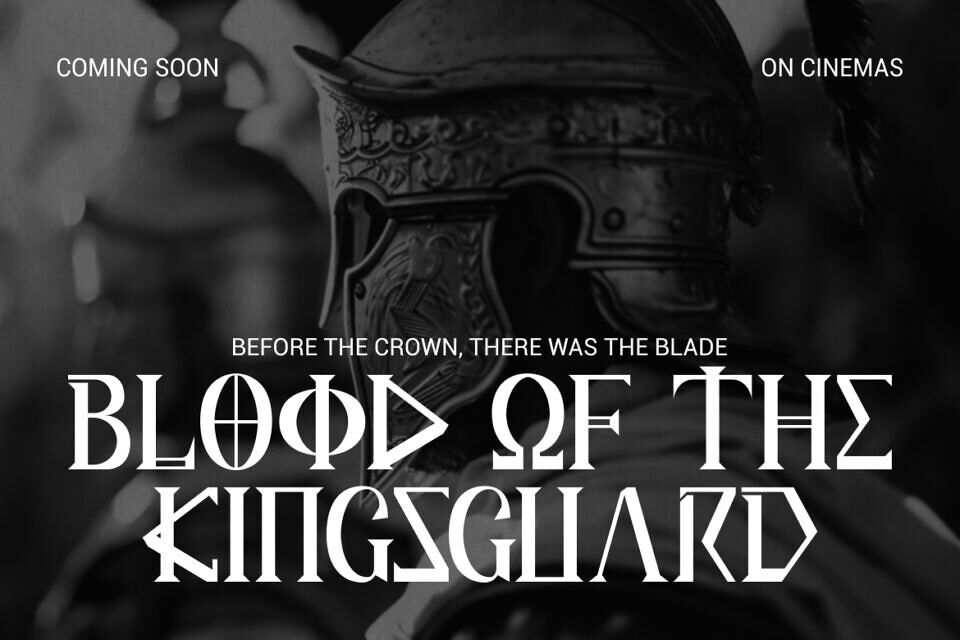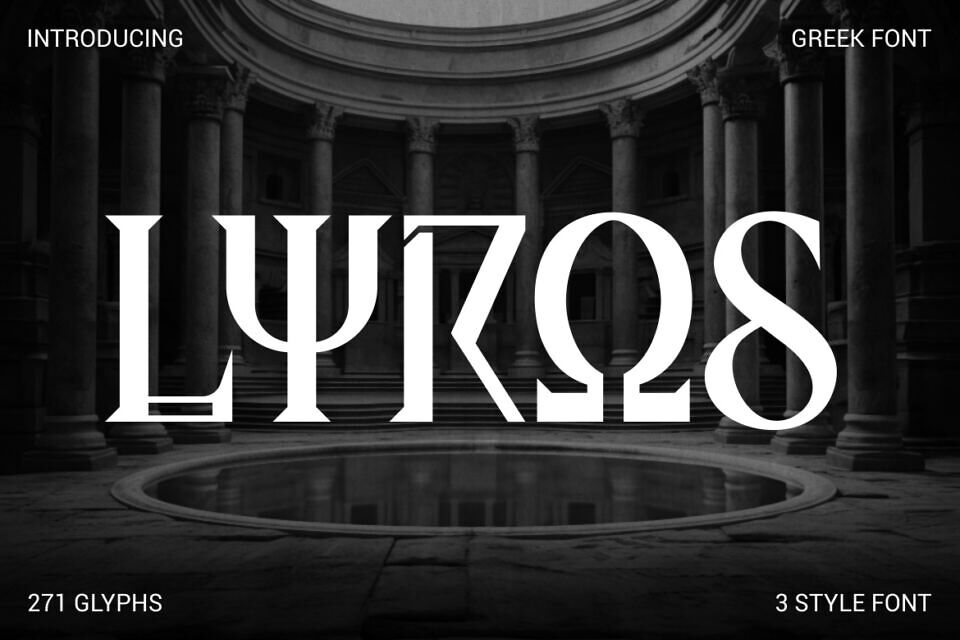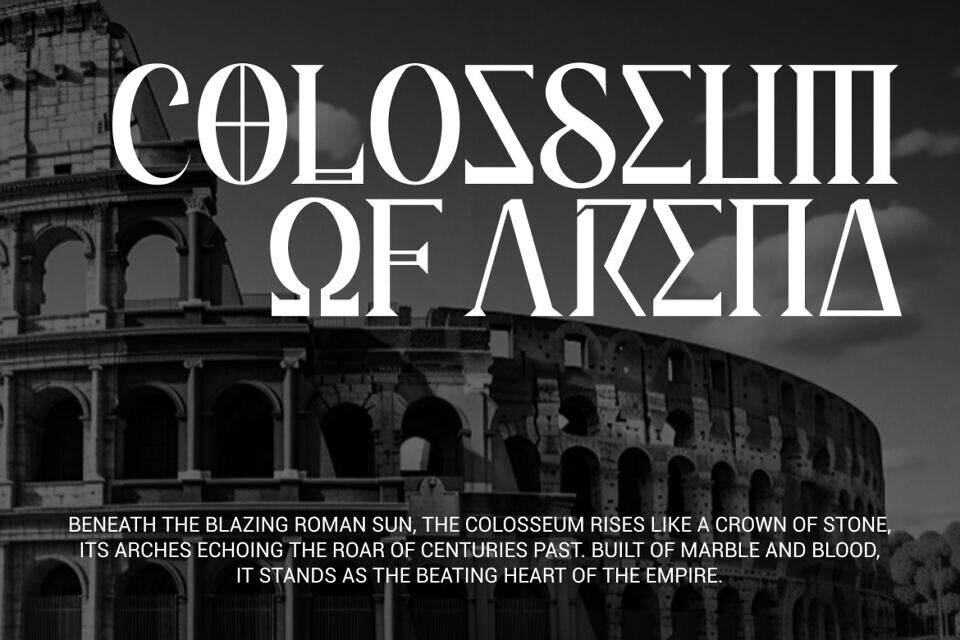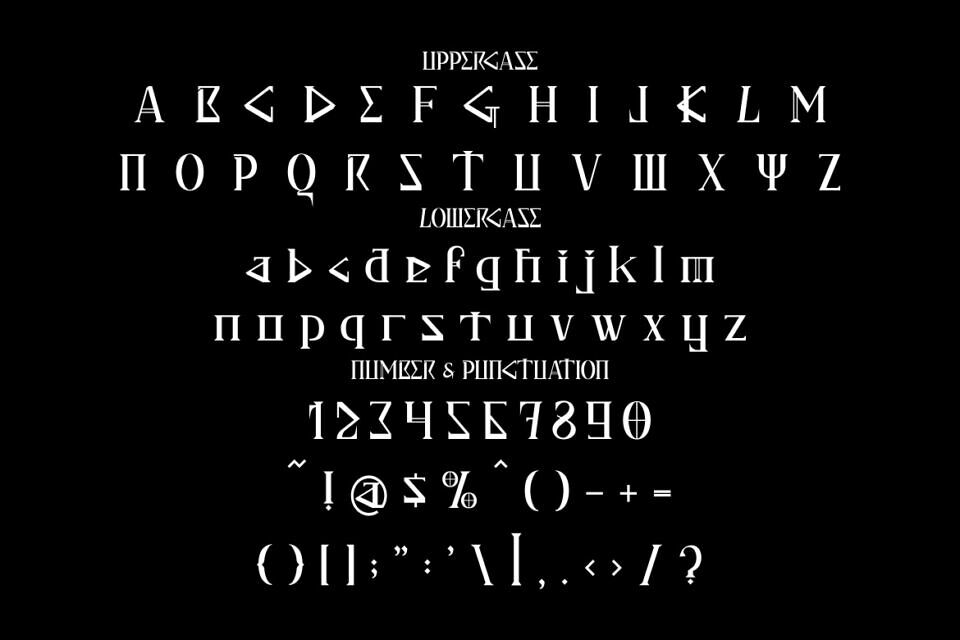
Lyros Font
Lyros Greek Font is a striking display typeface inspired by classical Greek letterforms and ancient stone-carved typography. The characters feature tall proportions with strong vertical emphasis, creating a commanding and authoritative presence. Each letter is built with sharp angles, solid strokes, and carefully cut terminals that echo traditional Greek inscriptions. The overall construction delivers clarity at large sizes, making the typeface visually impactful without sacrificing legibility.
Lyros Greek Font combines classic style with modern flair, exuding timelessness, boldness, and heroism. Its cinematic feel makes it perfect for logos, movie titles, and bold headlines. It also suits book covers, packaging, and promotional materials that require a strong, traditional identity.